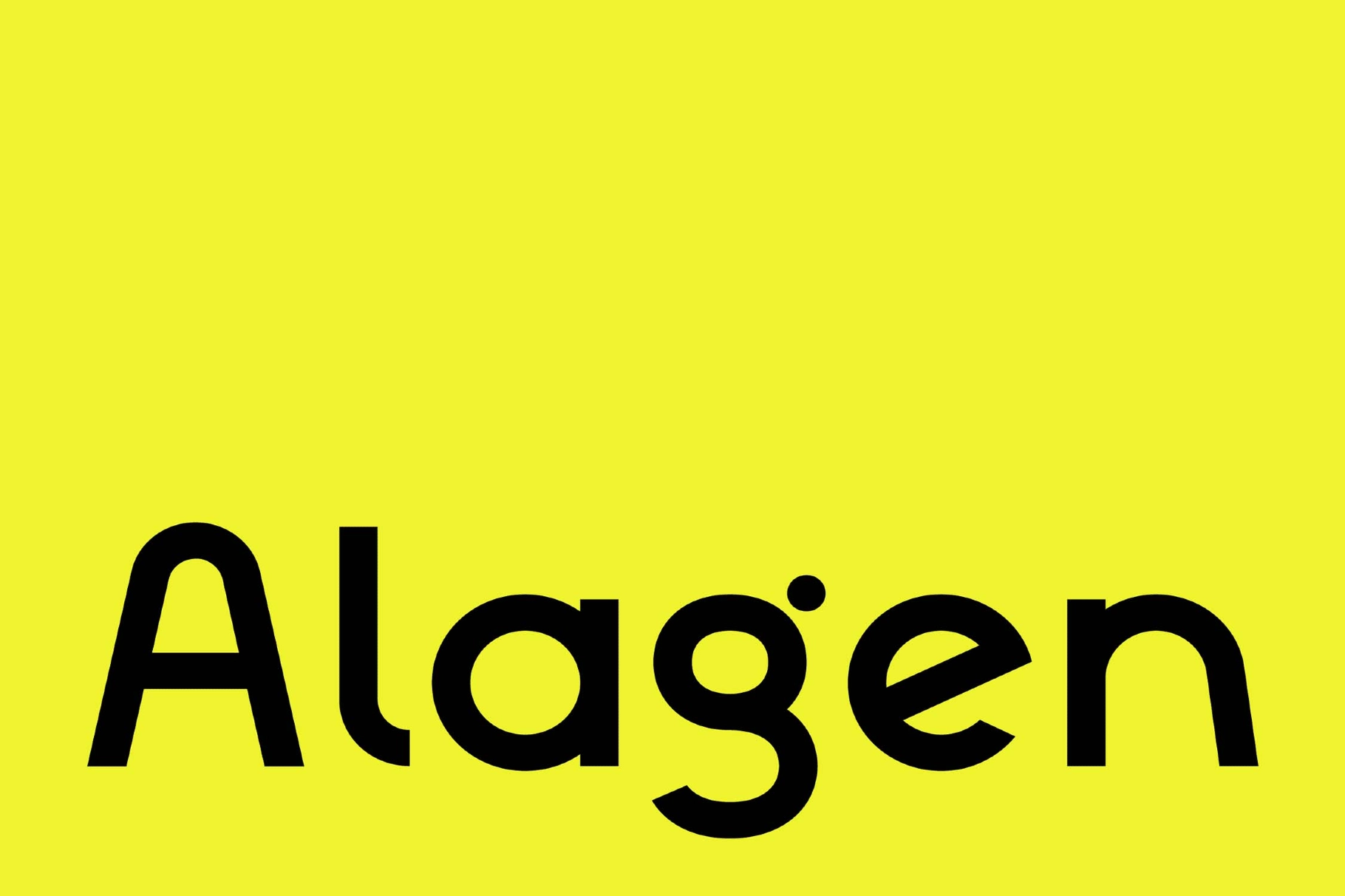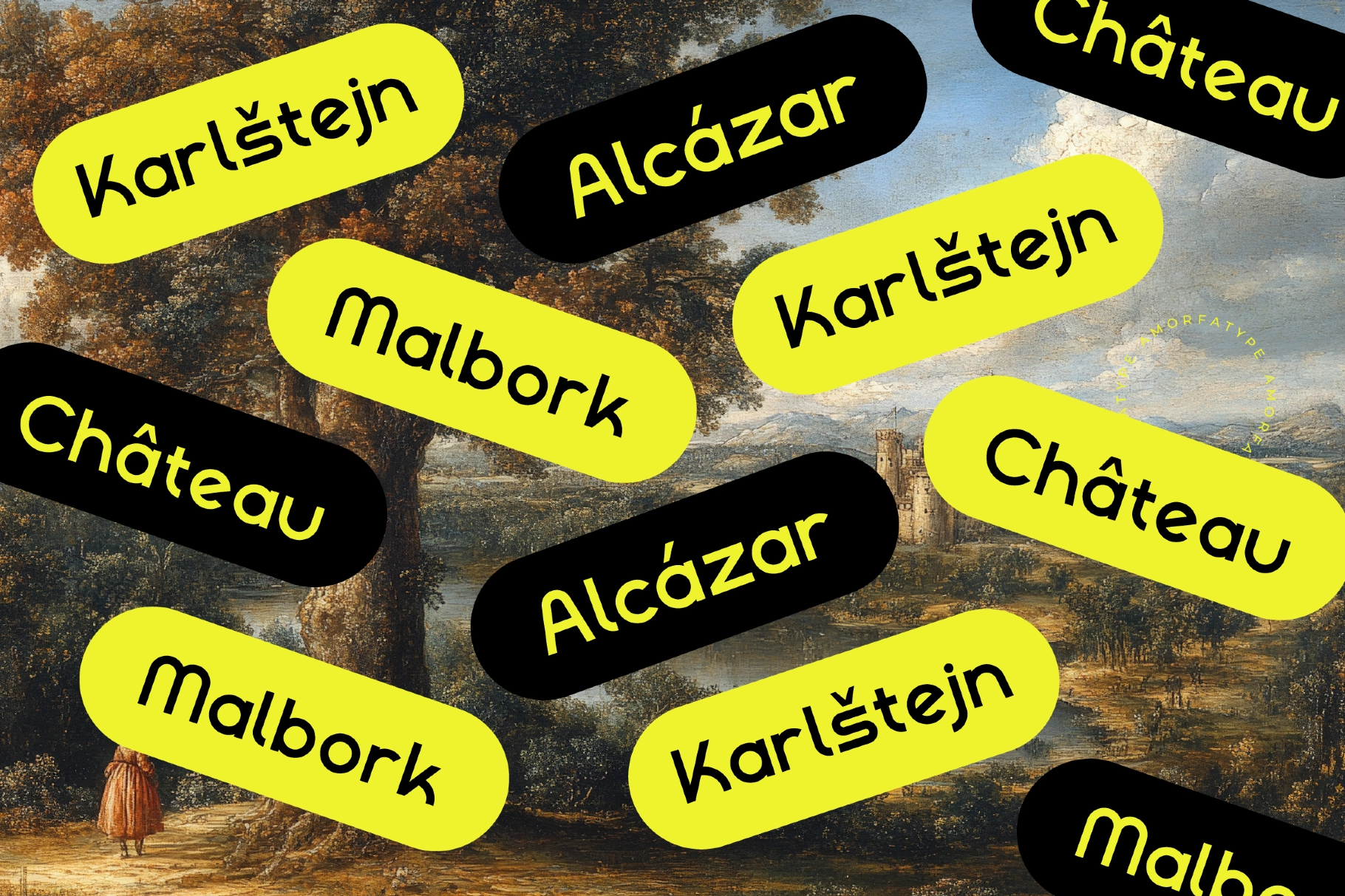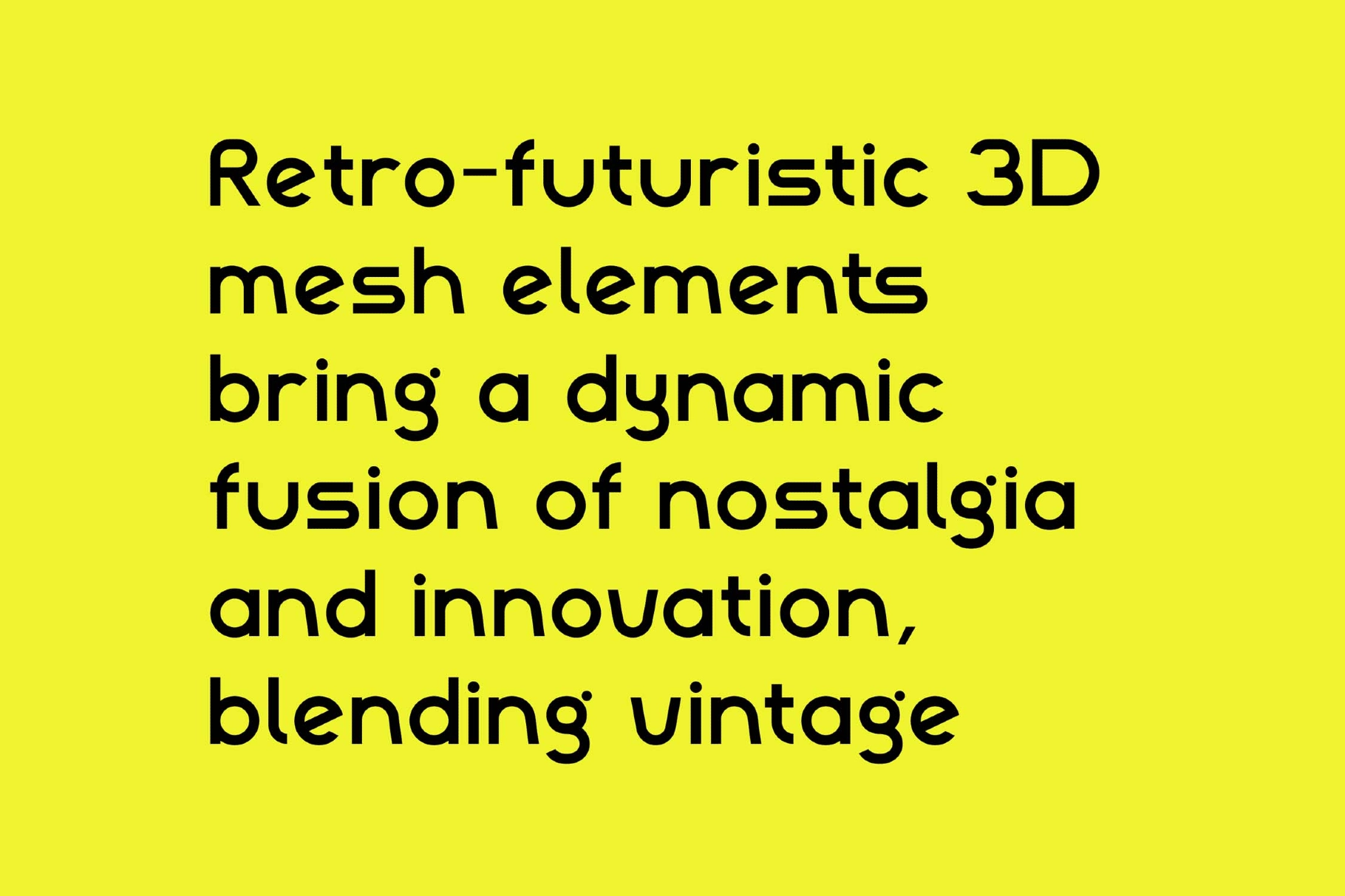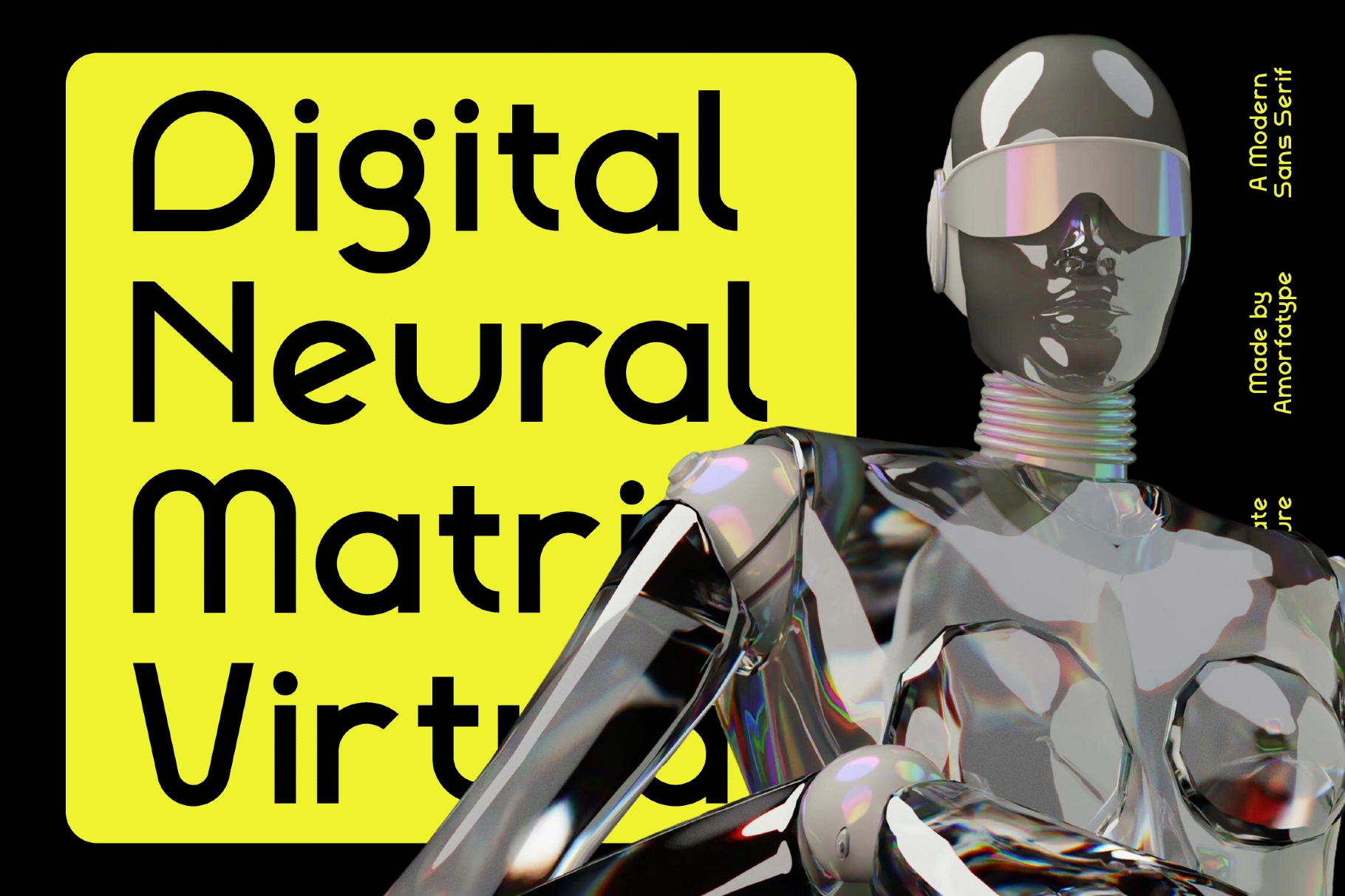
Alagen — Rounded Sans Serif Font
Alagen keeps its geometry tight and its curves rounded, with circular dots over the i's and open, consistent counters that hold up at both small text sizes and oversized headlines — a rounded sans serif font built for interfaces and editorial work that need to stay legible without going stiff.
Alagen works equally well set small in body copy or blown up across a headline, keeping the same steady rhythm at any scale. Use it for branding, editorial layouts, website interfaces, logos, corporate materials, packaging, and social graphics.
- Uppercase & lowercase;
- Numerals & punctuation;
- Ligatures & stylistic alternates